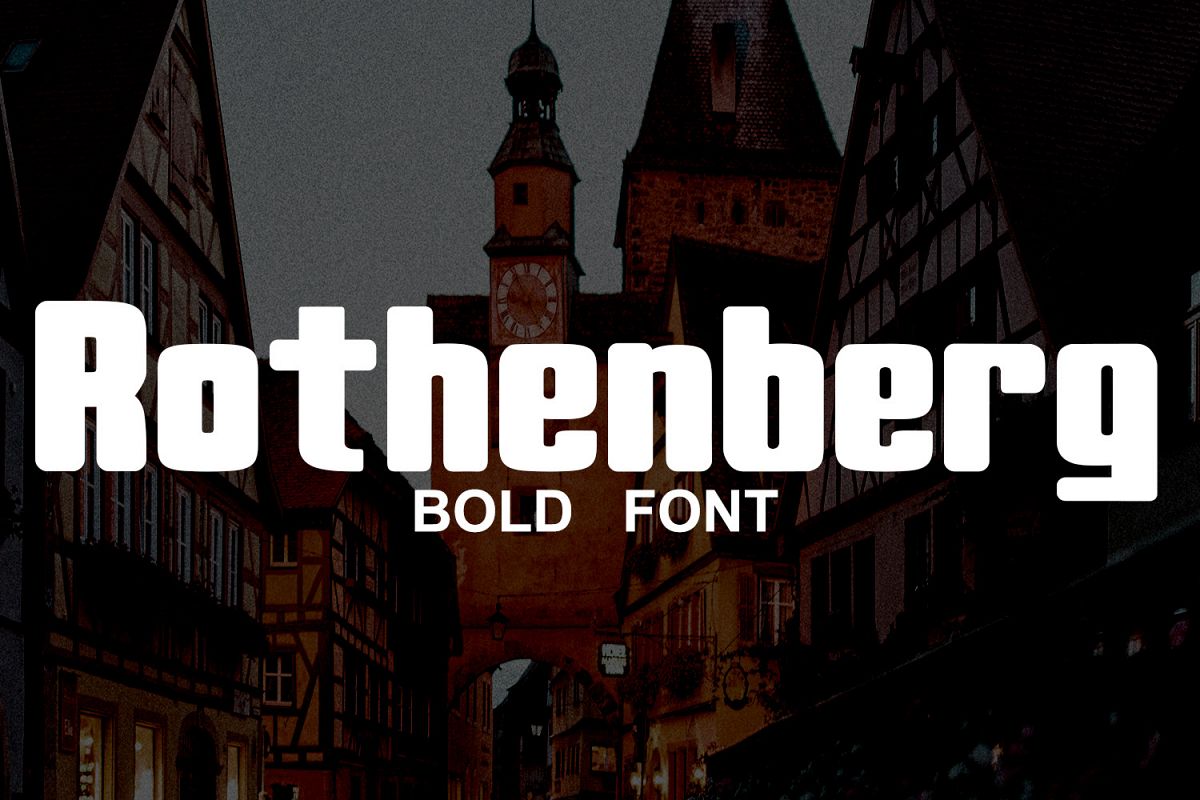
Rothenberg Bold
Rothenberg Bold Italic
The Rothenberg is a striking sans serif. with 2 style regular and italic, Its bold letter have a great readability and are perfect for headlines, displays, logos, flyers, and much more!